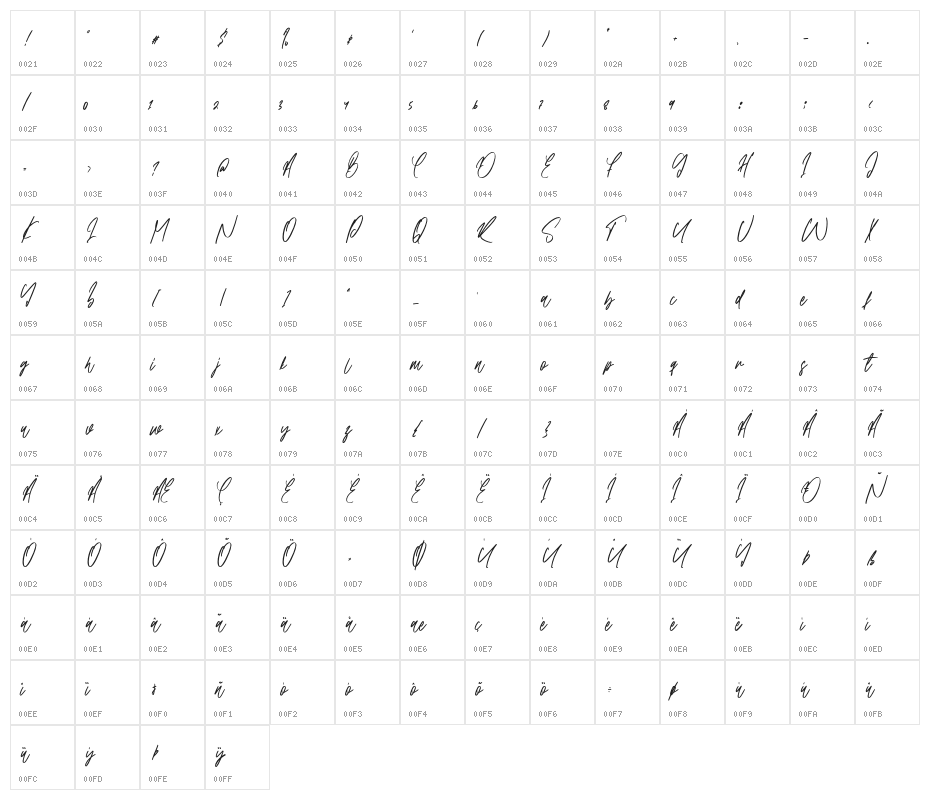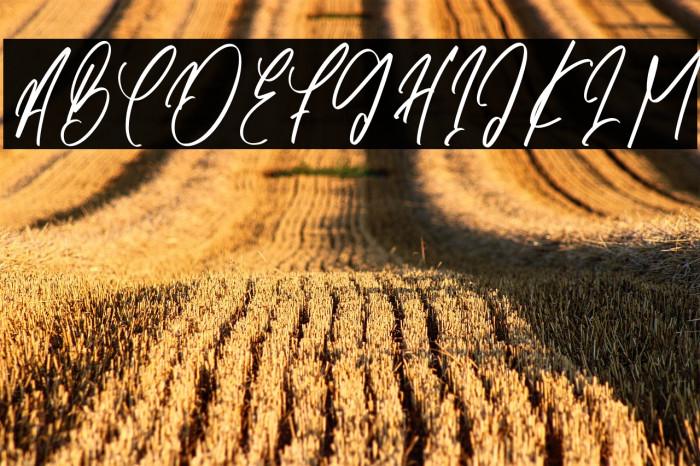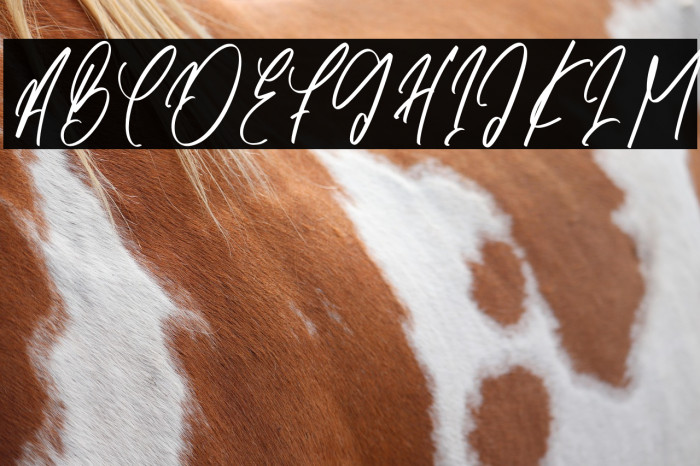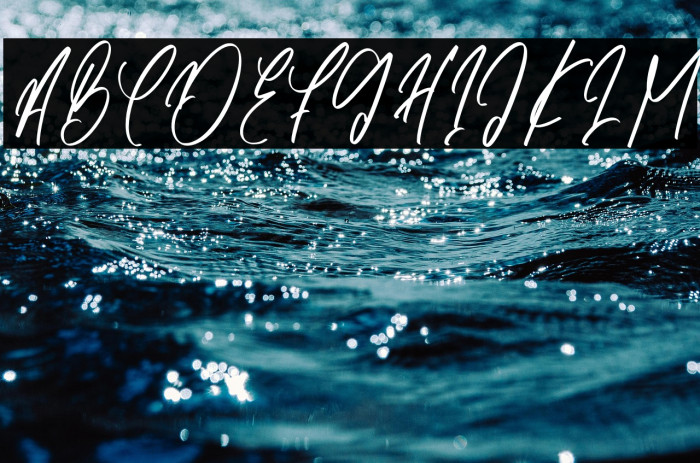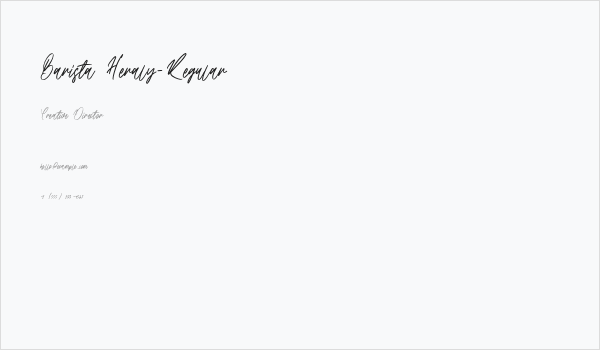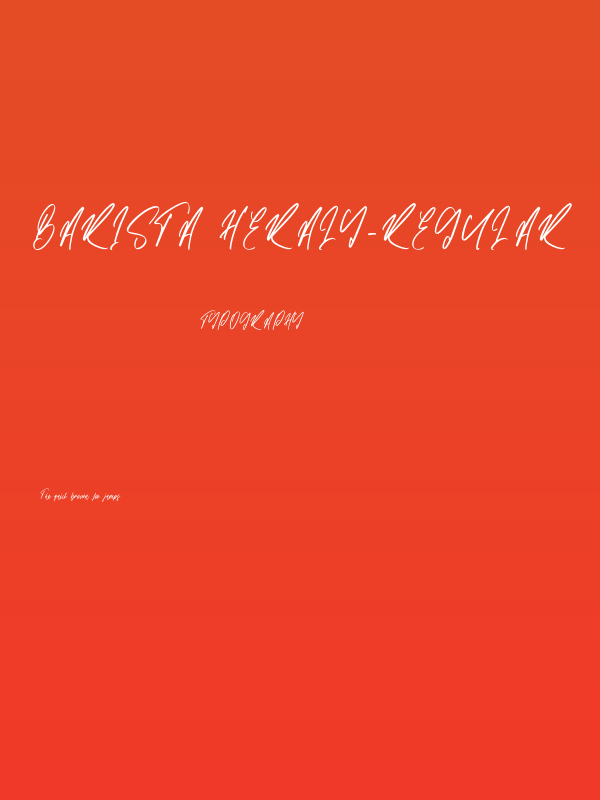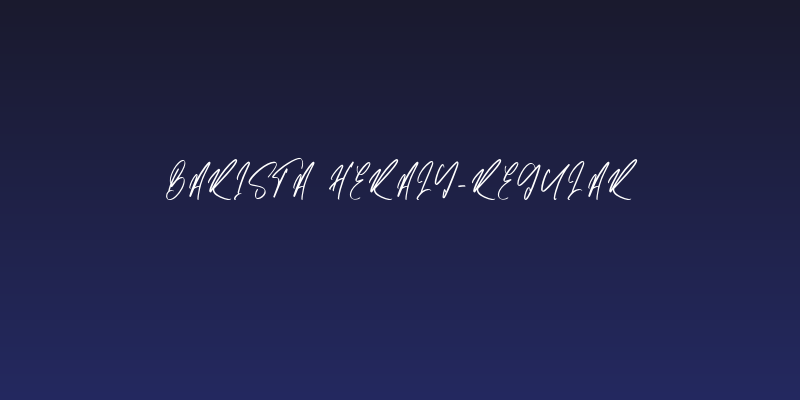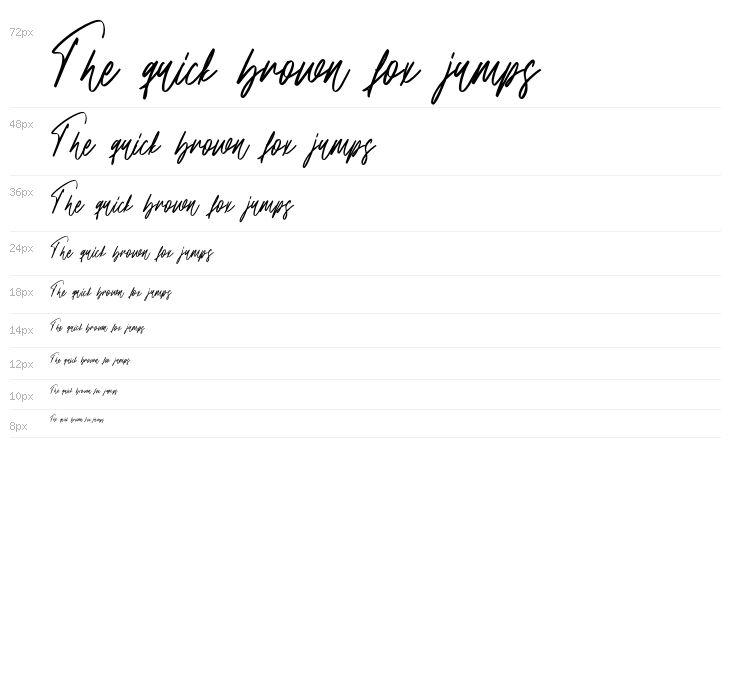
Barista Heraly-Regular Font
Barista Heraly-Regular Description
This elegant script font features fluid, cursive strokes that mimic the natural flow of handwriting. The characters are connected, creating a seamless and graceful appearance. The uppercase letters are slightly more elaborate, with decorative flourishes that add a touch of sophistication. The lowercase letters maintain a consistent style, ensuring readability while retaining the font's artistic flair. The numbers and special characters are designed to match the overall aesthetic, making this font versatile for various design needs.